I Will Show font name But I can’t find it this font.
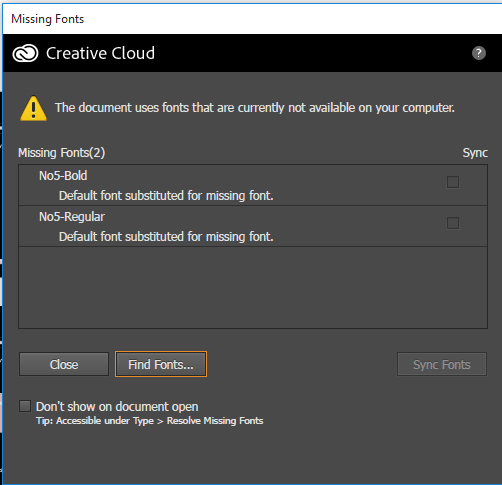
There are so many geometric sans serif fonts out nowadays, maybe you can use one of these as a replacement:
Corbert (Font by by The Northern Block Ltd)
Loew (Font by The Northern Block Ltd)
Gotham (Fonts by Tobias Frere-Jones)
Magallanes (Font by Latinotype)
Montserrat (Font by Julieta Ulanovsky; FREE)
Metropolis (Font by Chris Simpson; FREE)
… etc.